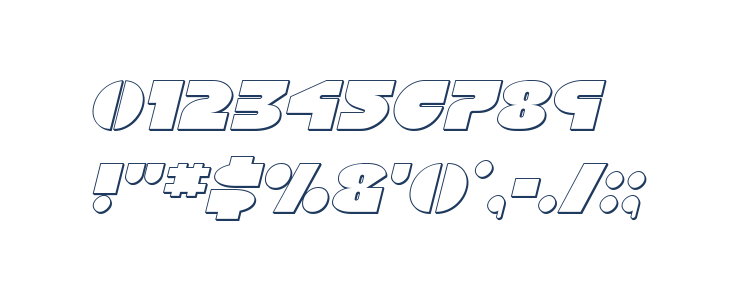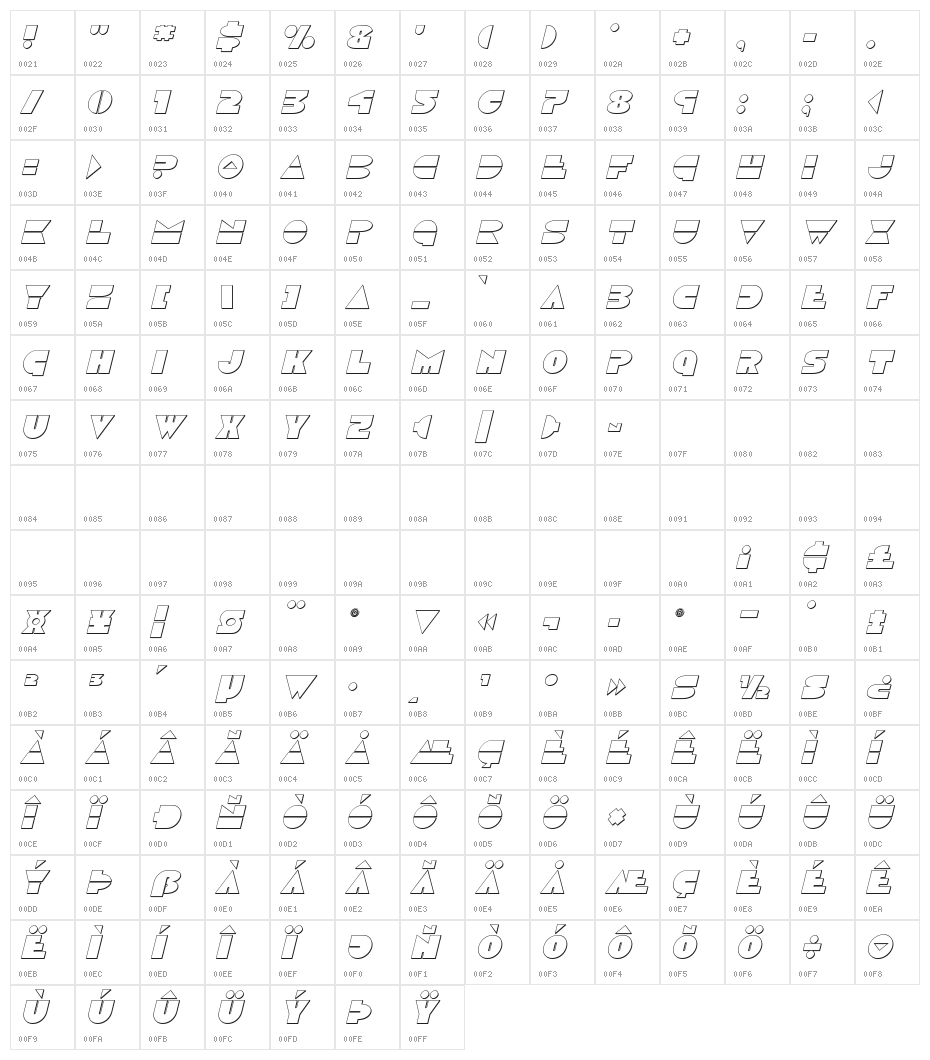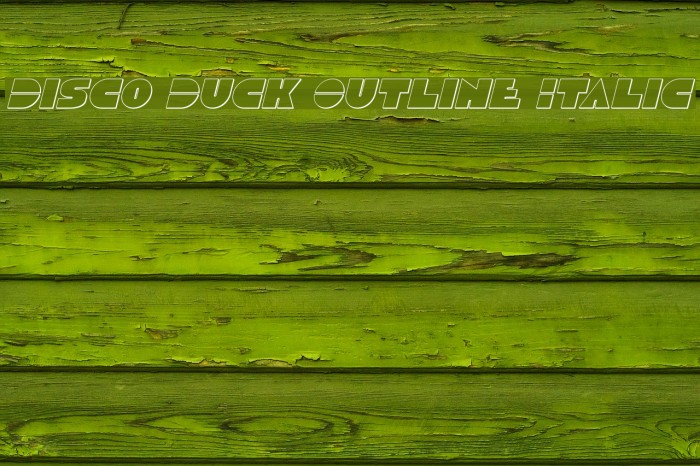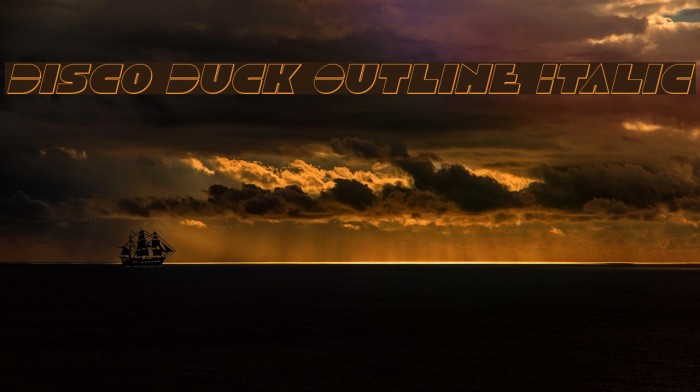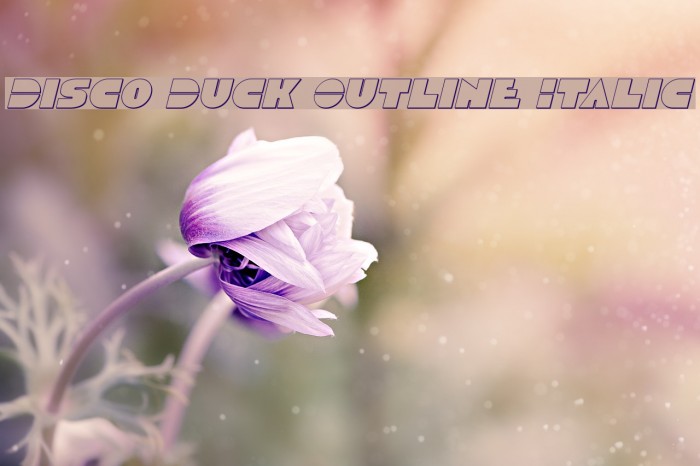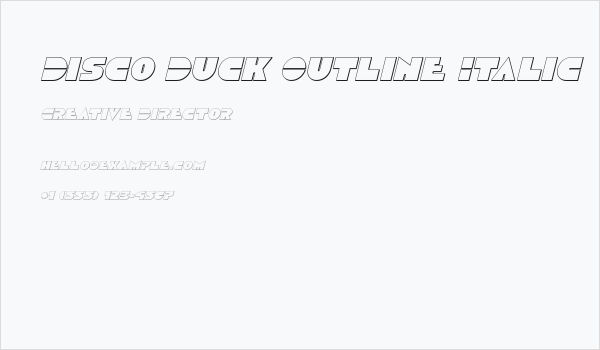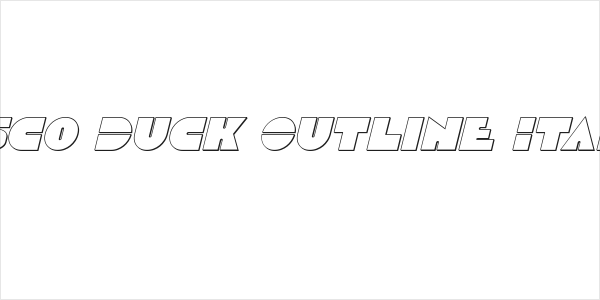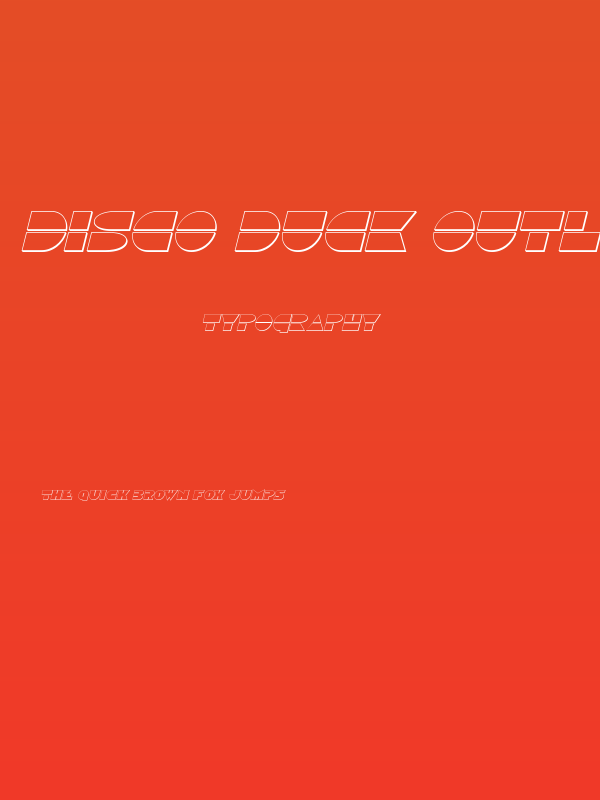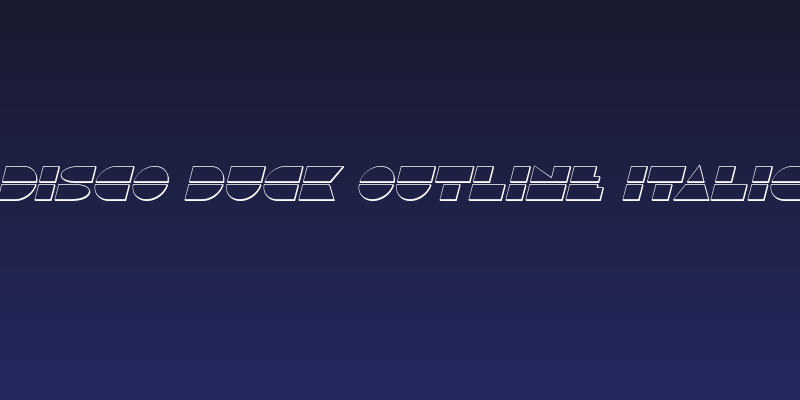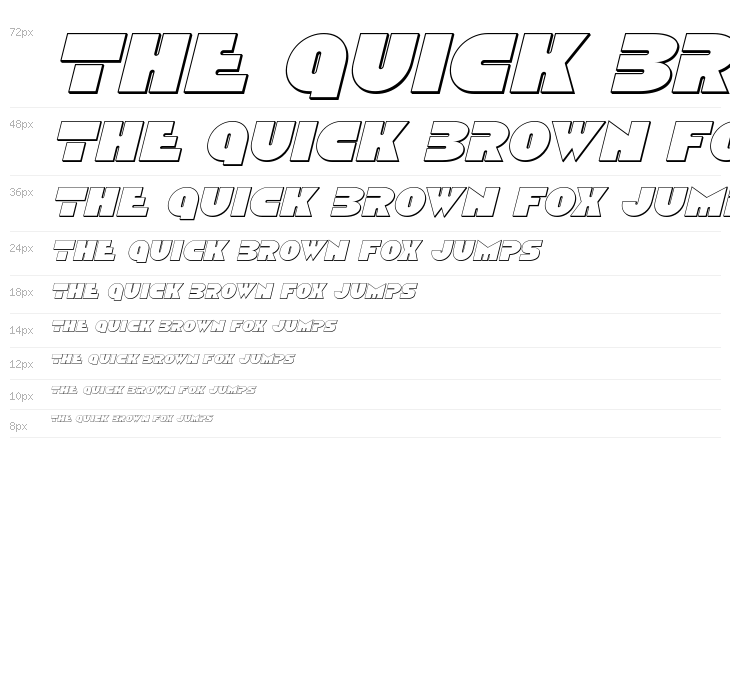
Disco Duck Outline Italic Font
Disco Duck Outline Italic Description
This font features a bold, geometric design with an outline style that gives it a distinct, modern flair. The characters are italicized, adding a dynamic and energetic feel. The uppercase letters are angular and sharp, while the lowercase letters maintain a consistent style, ensuring readability. The numbers and special characters follow the same design principles, making the font suitable for various creative applications. Its outline nature allows for interesting layering and color play, making it ideal for eye-catching designs.
| Proposed Projects | Ideal for retro-themed posters, music album covers, event flyers, and digital artwork where a bold statement is needed. |